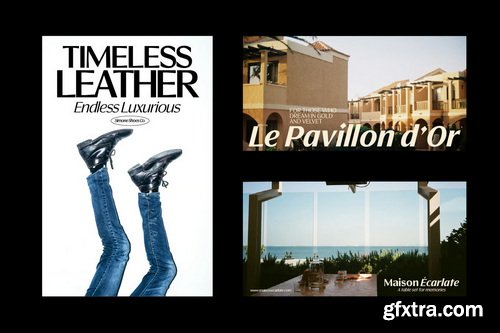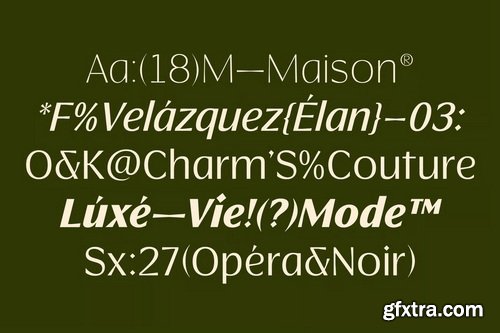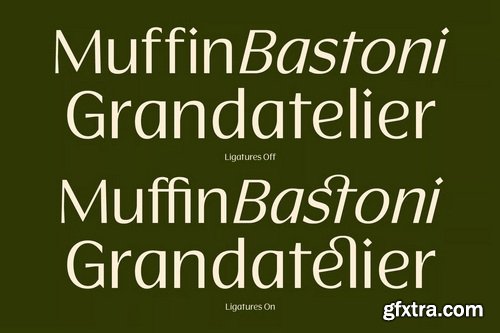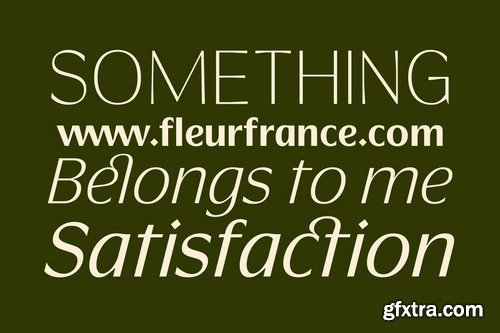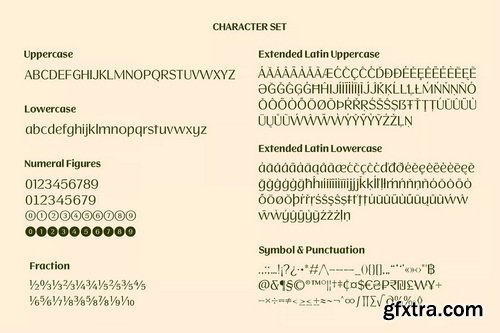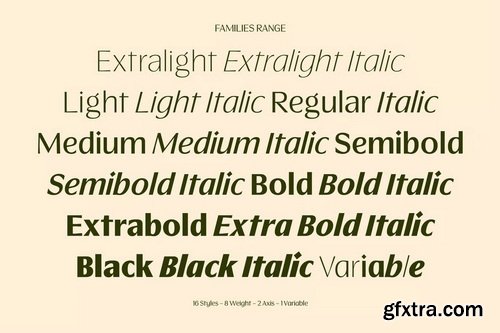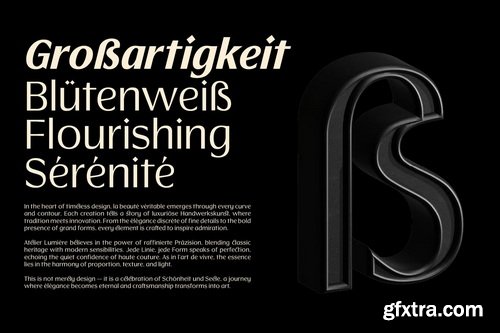
- Luxury Rigane is a luxury elegant high-contrast sans serif crafted for brands that demand both sophistication and versatility. Designed for display and text, it combines refined proportions with modern clarity, and classy making it equally stunning in brand identities, signage systems, editorial layouts, websites, and bold headlines.
- Its most distinctive features are the graceful letterforms of “a” and “g”, shaped to exude elegance, prestige, and exclusivity. Activate Stylistic Set 01 (SS01) to transform a, g, and y into even smoother, more luxurious forms — ideal for logos, high-end branding, elegant posters, or web headlines that need a premium touch. The typeface also comes with a wide range of smooth ligatures that elevate typography into a design statement.